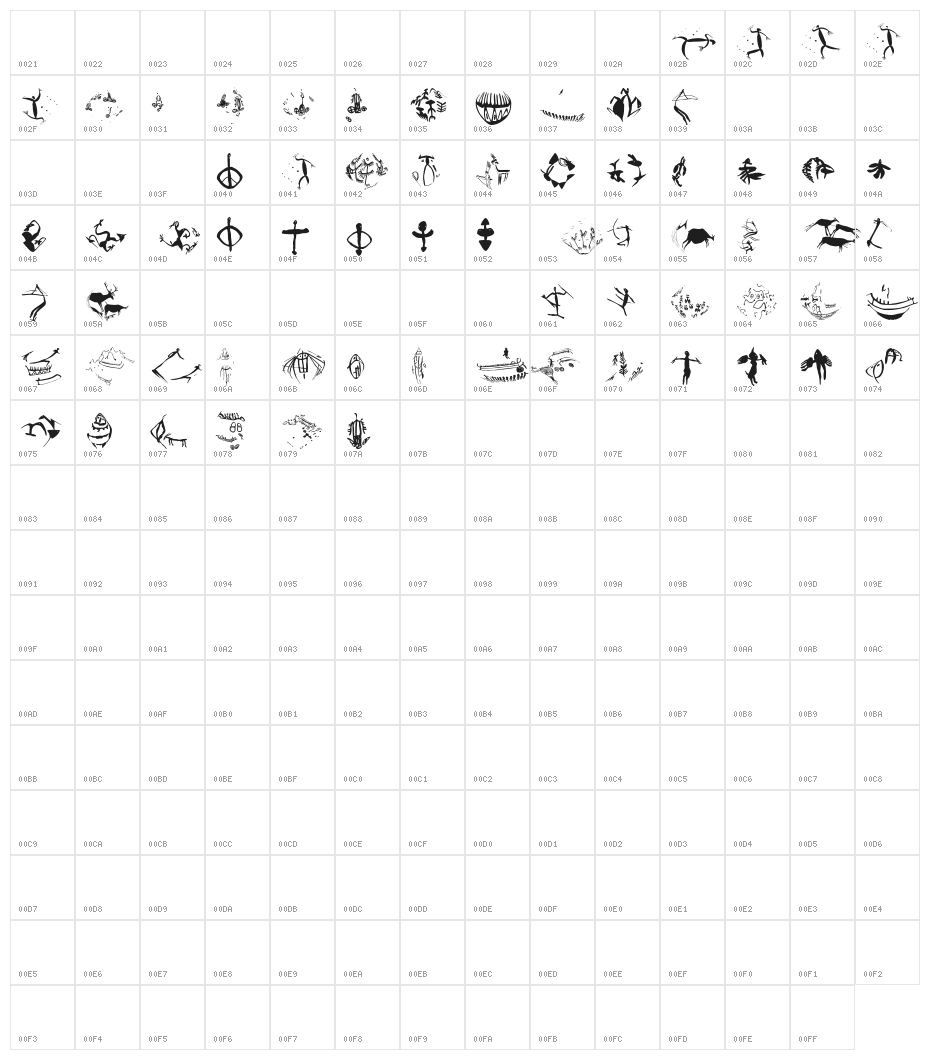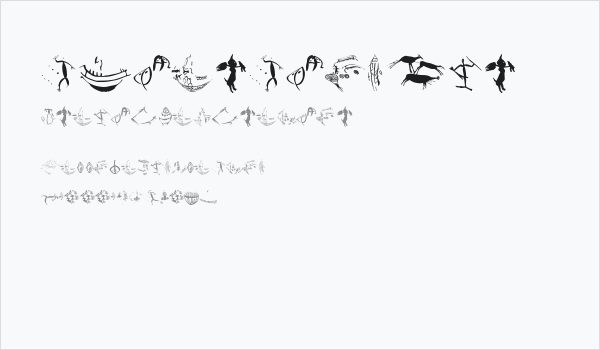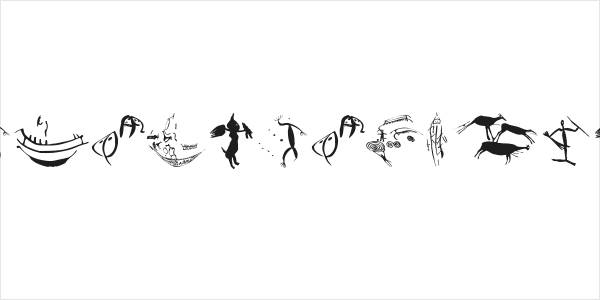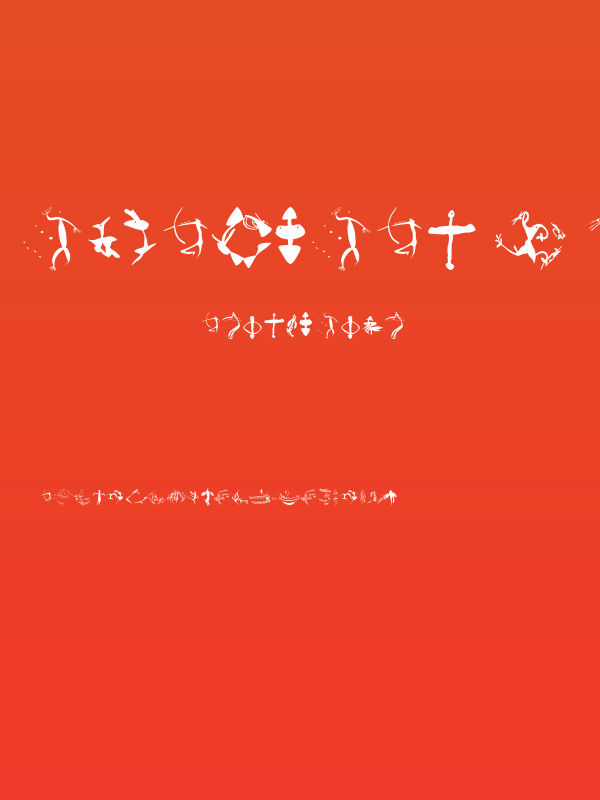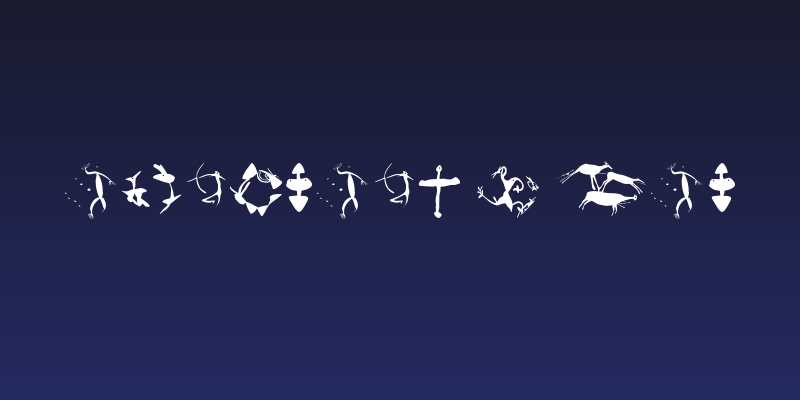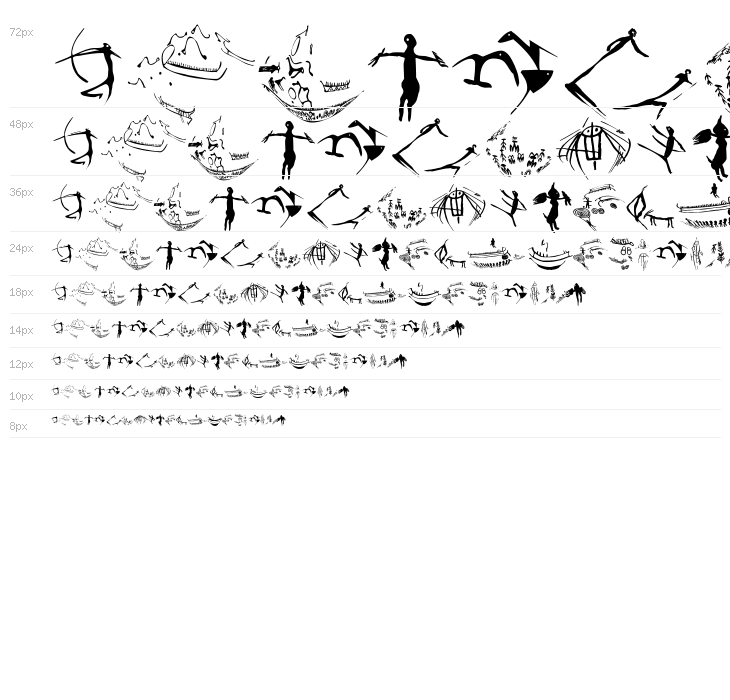
AfterAtomWar Font
AfterAtomWar Description
This design features a series of abstract, tribal-like symbols that resemble ancient cave paintings or petroglyphs. Each character is crafted with a unique, organic form that suggests movement and storytelling, reminiscent of primitive art. The symbols are highly decorative, with intricate details that evoke a sense of history and culture. The overall aesthetic is raw and expressive, capturing the essence of early human creativity. These elements combine to create a visually striking and unconventional style that stands out in any design context.
| Overall Style | Primitive, Artistic, Historical |
| Use Case | Artistic projects, Branding, Educational materials |
| Proposed Projects | Ideal for projects that require a primitive or historical theme, such as museum exhibits, educational materials about ancient cultures, or artistic installations. It could also be used in branding for products that emphasize natural or organic qualities. |